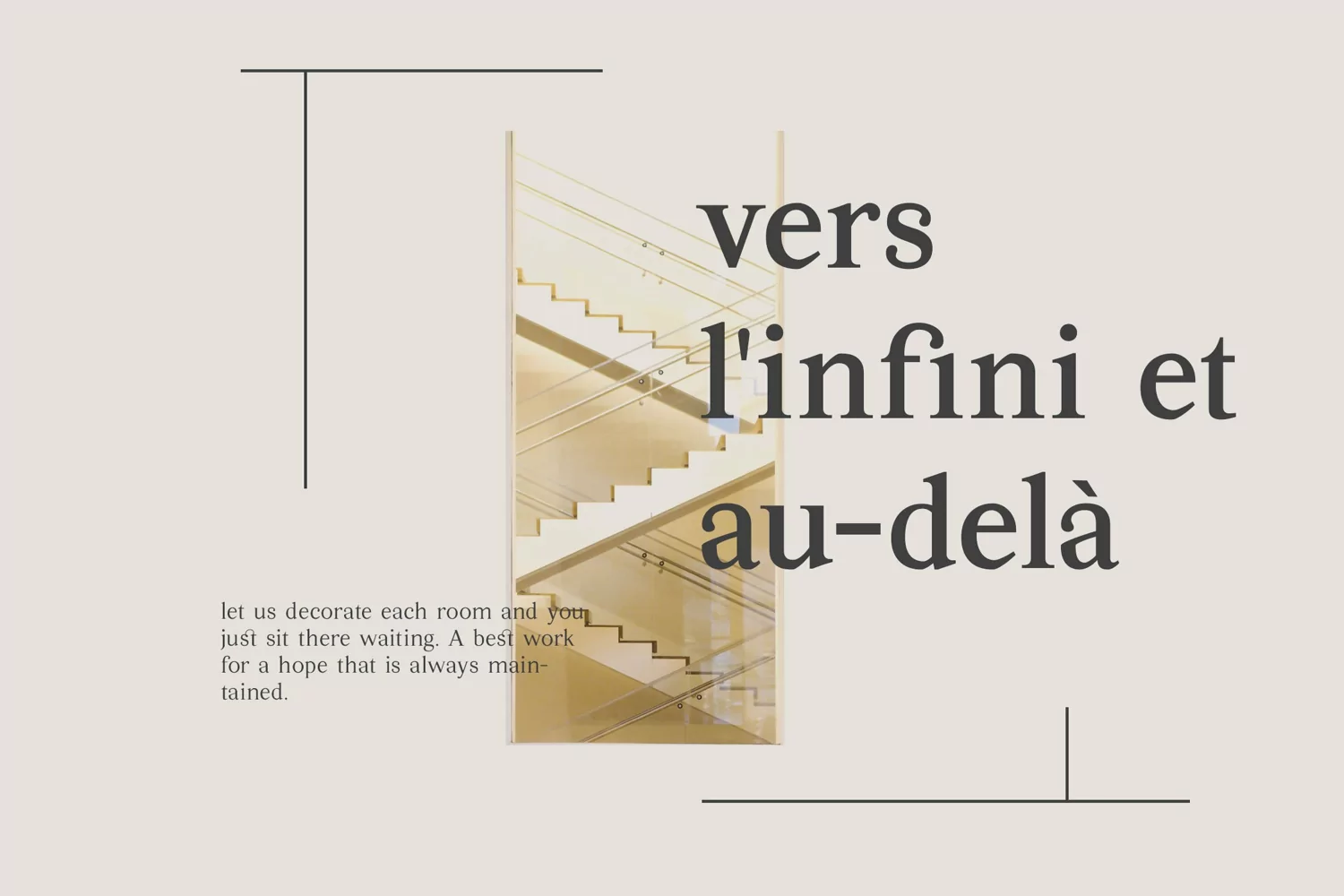
Quatera Serif Family
Quatera is an old style serif family with 9 weight styles from thin to black.
Quatera Serif font is perfect for your up coming projects. Such as logo branding, editorial design, stationery design, blog design, modern advertising design, card invitation, magazine, company profile, art quote, home decor, book/cover title, special events and any more.